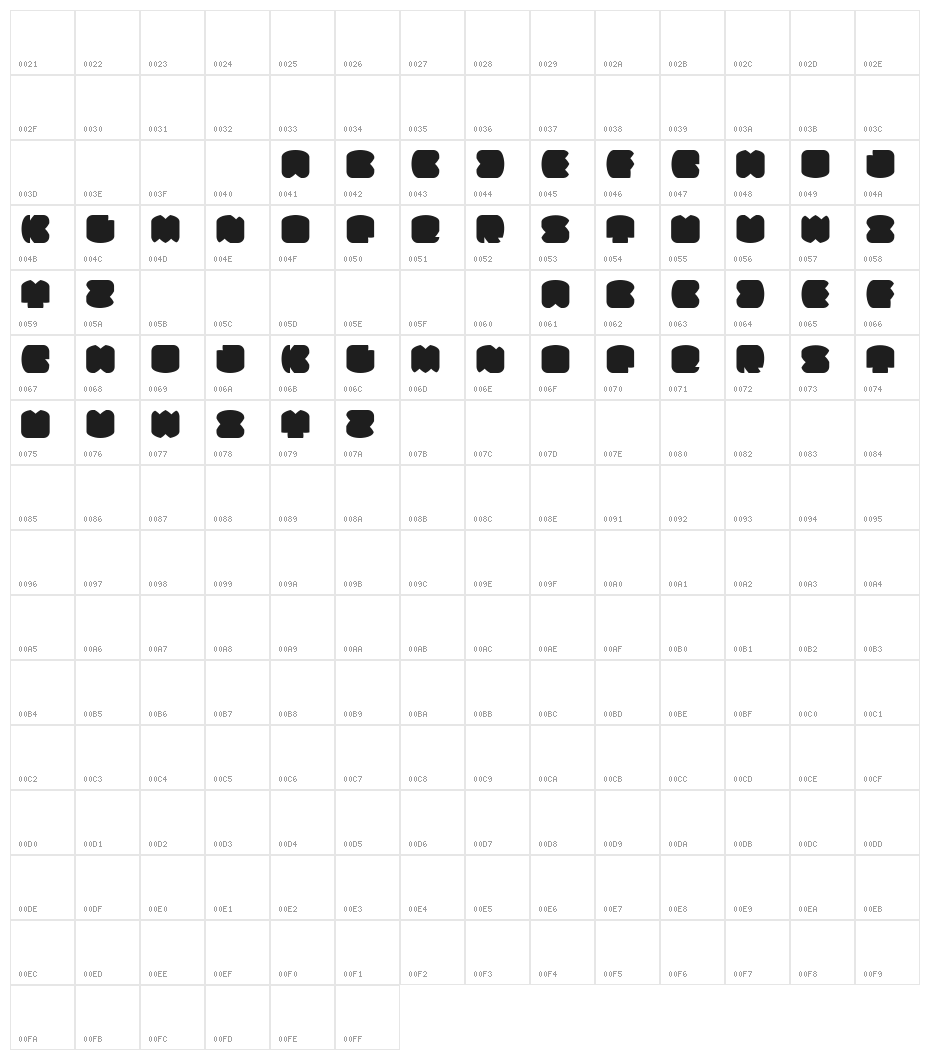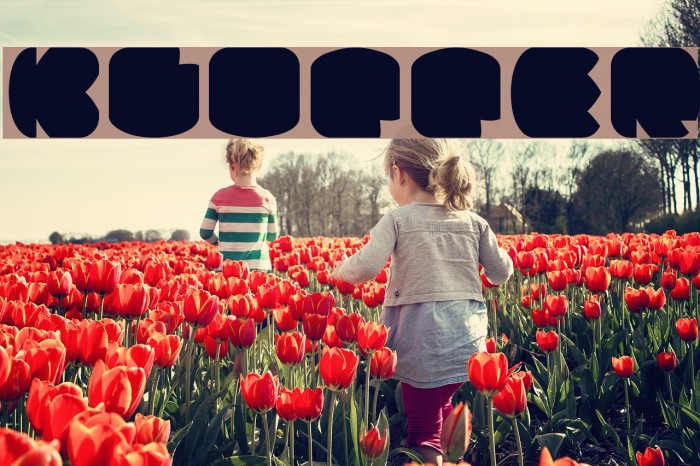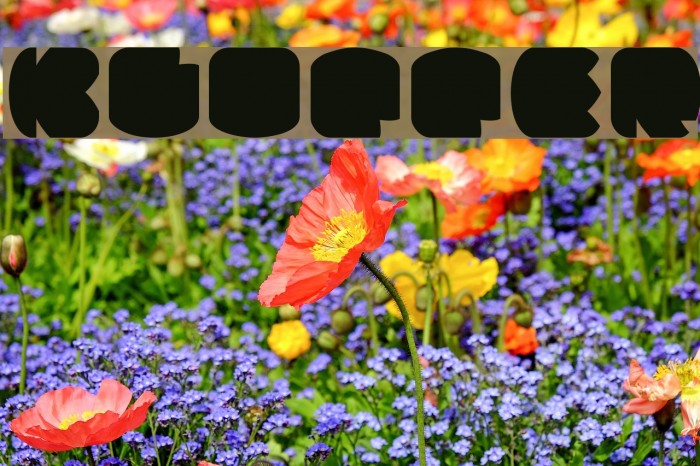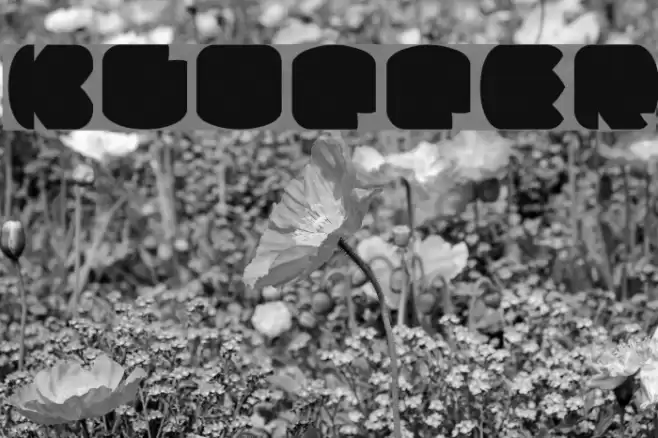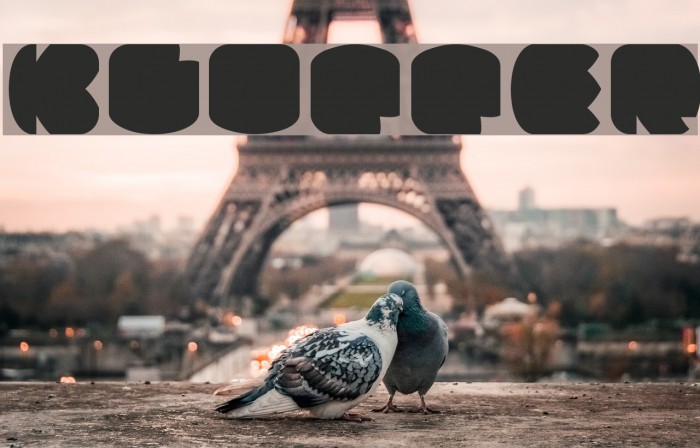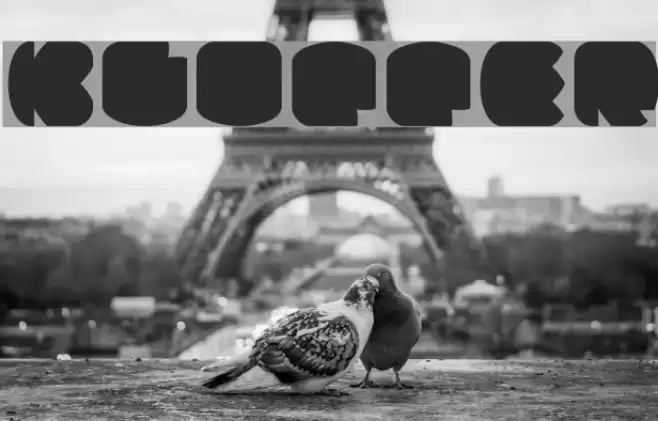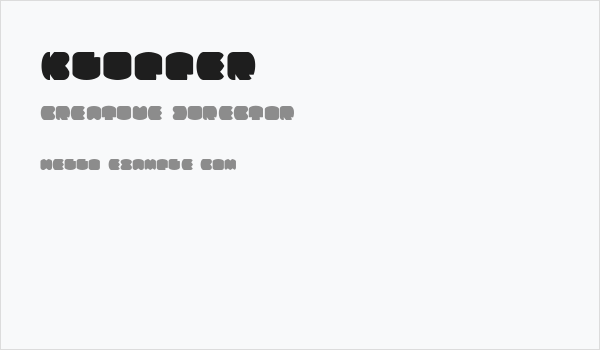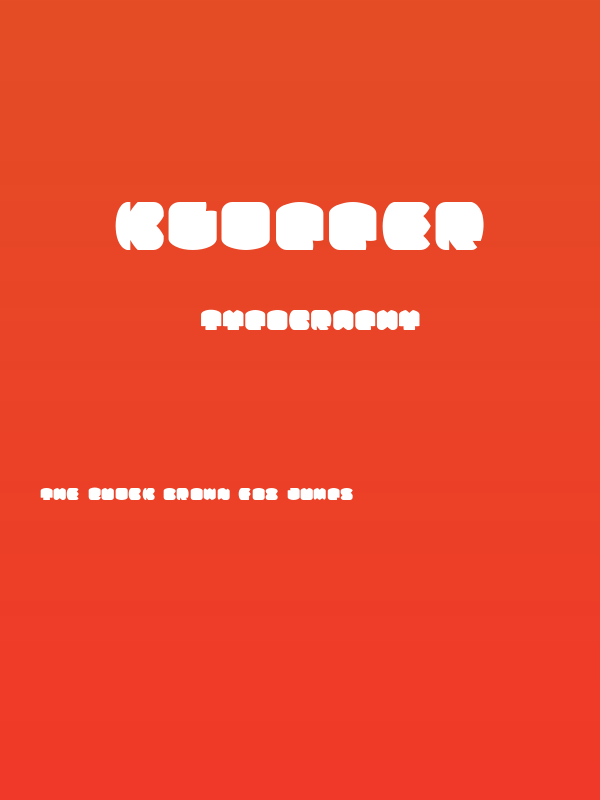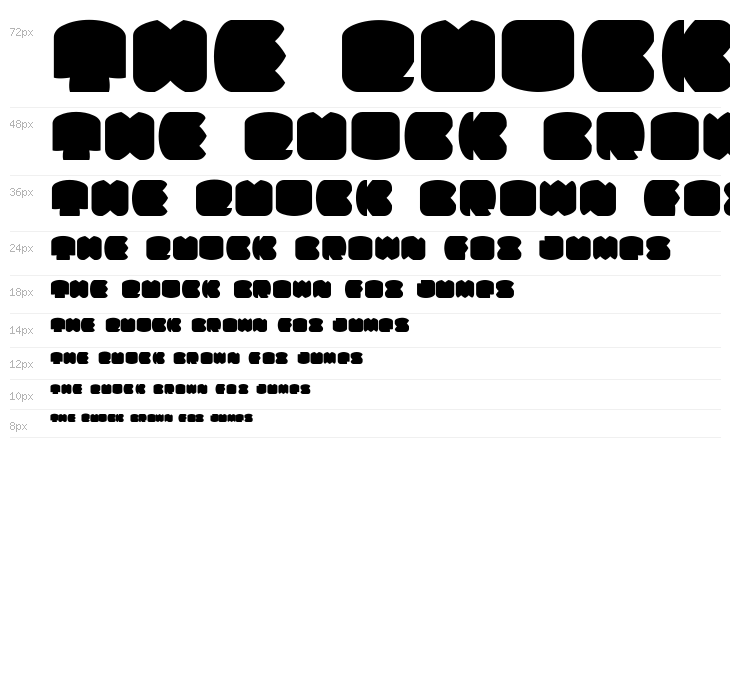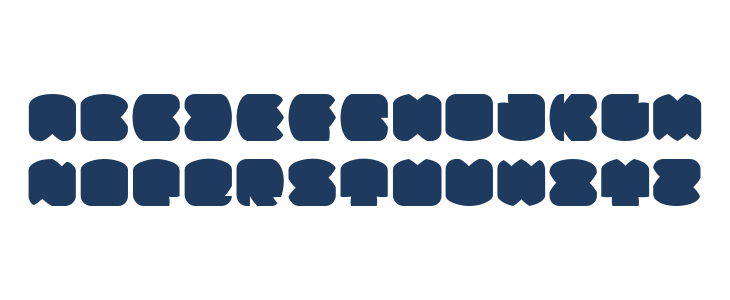
Klipper Font
Klipper Description
This font features a bold and playful design with rounded, geometric shapes that create a sense of fun and creativity. Each character is crafted with a unique, blocky style that emphasizes a modern and artistic flair. The letters are uniformly bold, with consistent stroke thickness, giving the font a cohesive and striking appearance. The overall design is reminiscent of retro or vintage styles, yet it maintains a contemporary edge that makes it versatile for various design projects. The font's distinctiveness lies in its ability to capture attention while remaining legible, making it ideal for creative and dynamic visual presentations.
| Proposed Projects | Ideal for posters, logos, branding, and any project requiring a bold, eye-catching typeface. |